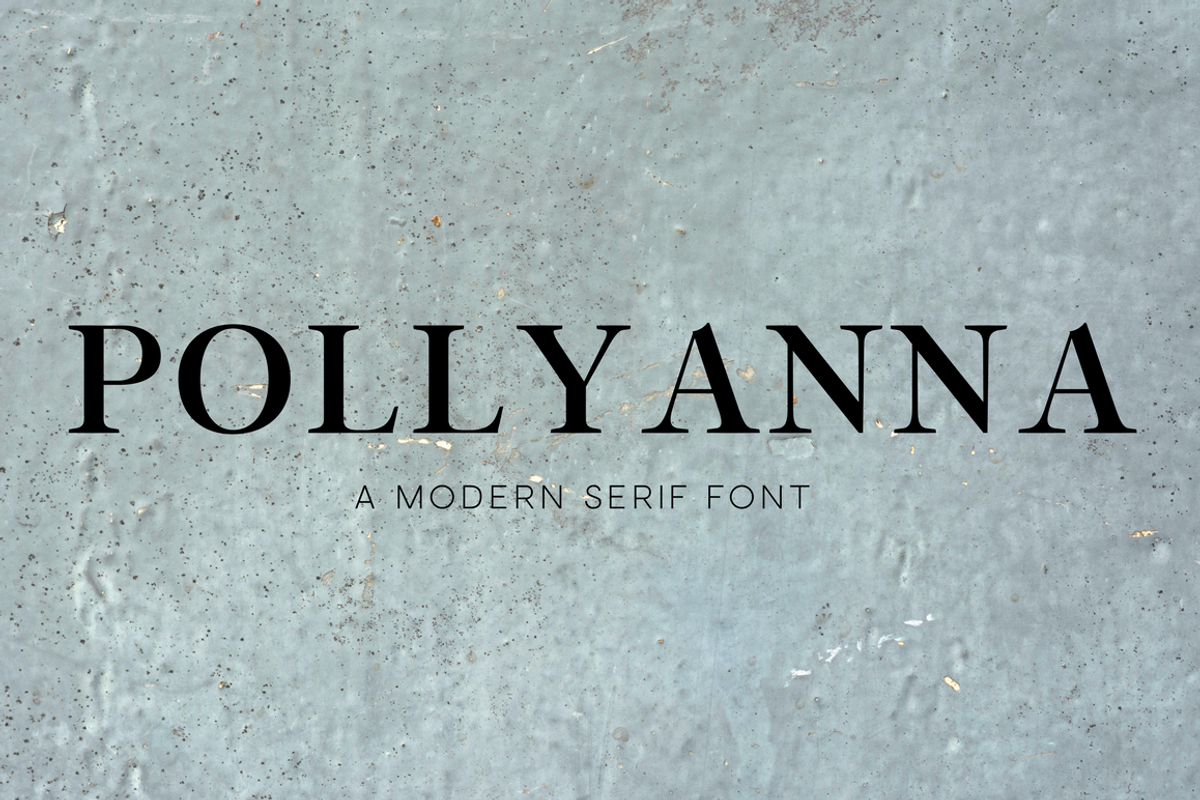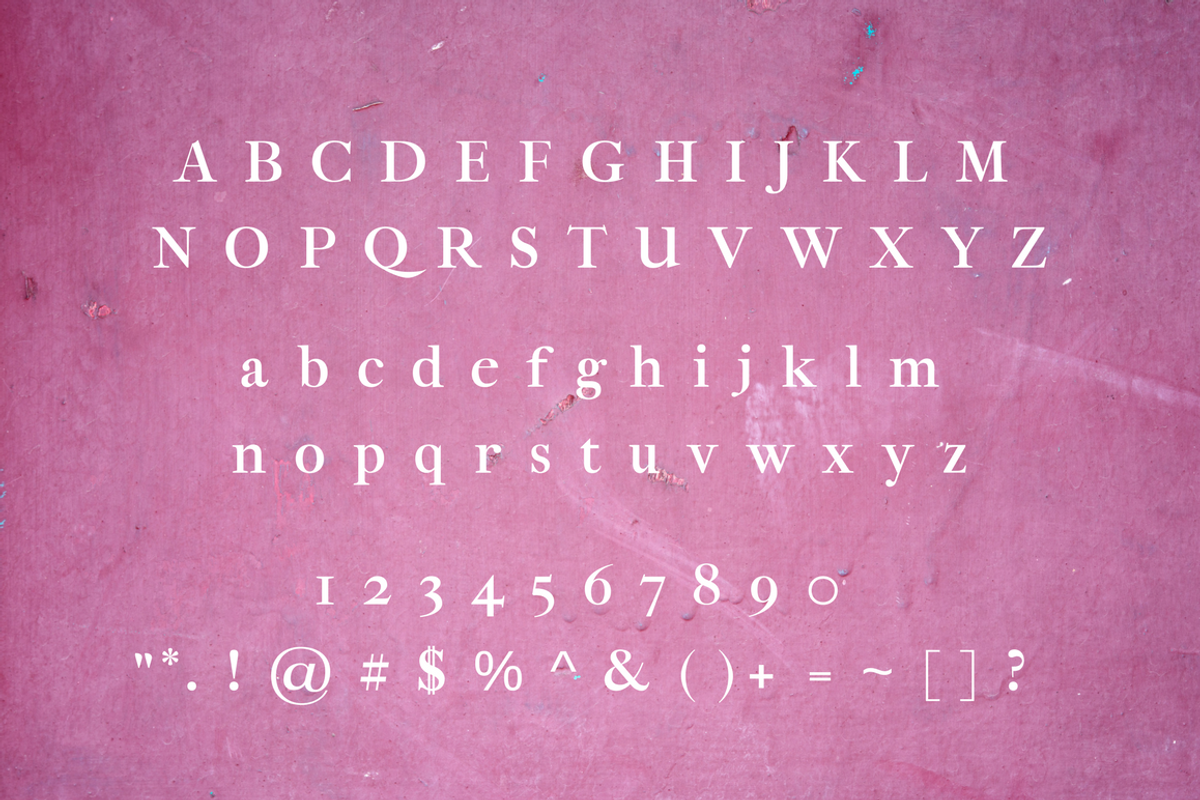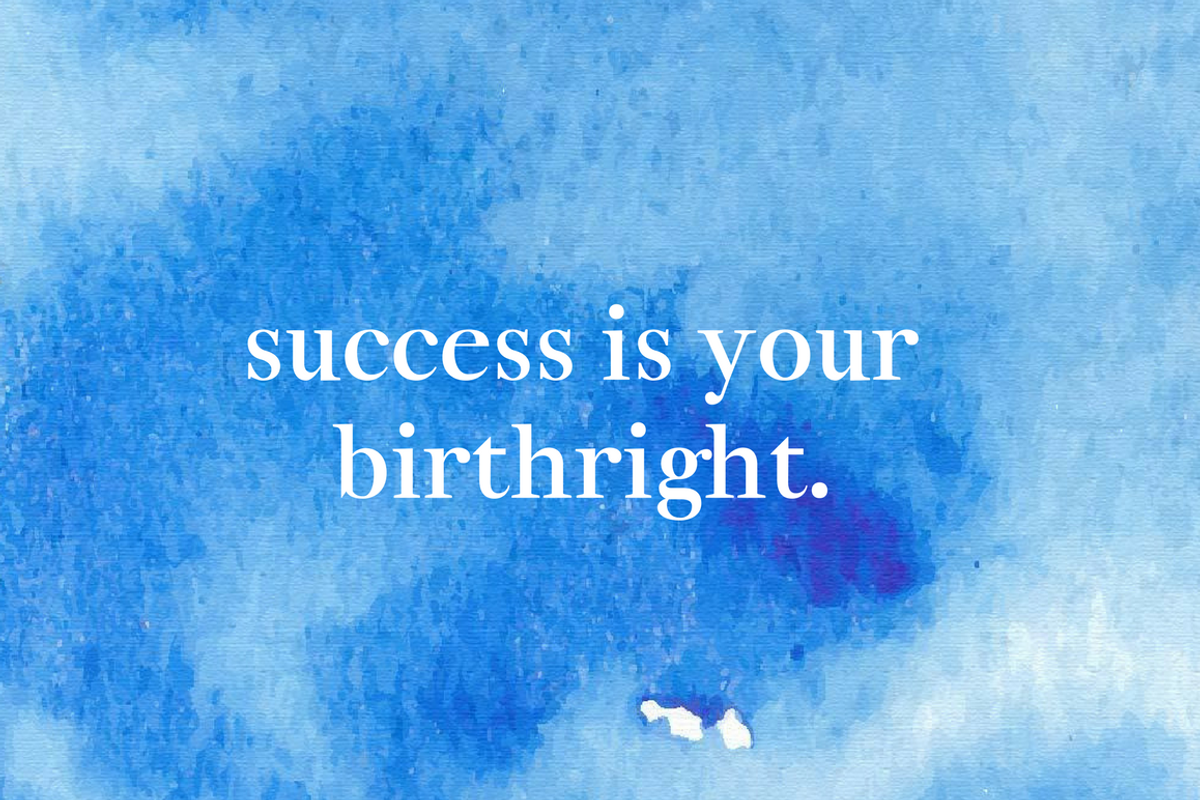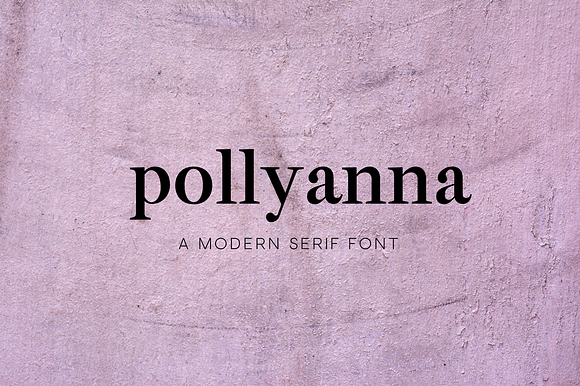
Pollyanna - Modern Serif Font
Introducing Pollyanna a fun serif font created by Black Dahlia Press.
Uppercase, lowercase, numerals + punctuation included.